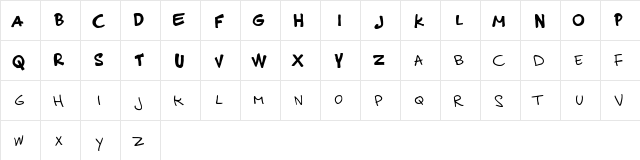
Matapacos FREE Regular
| Foundry | Beraka Design |
| Designer | Beraka Design |
Design Context for Matapacos FREE Typeface
Matapacos FREE is a composed and adaptable typeface that performs quietly and consistently across a wide range of design contexts.